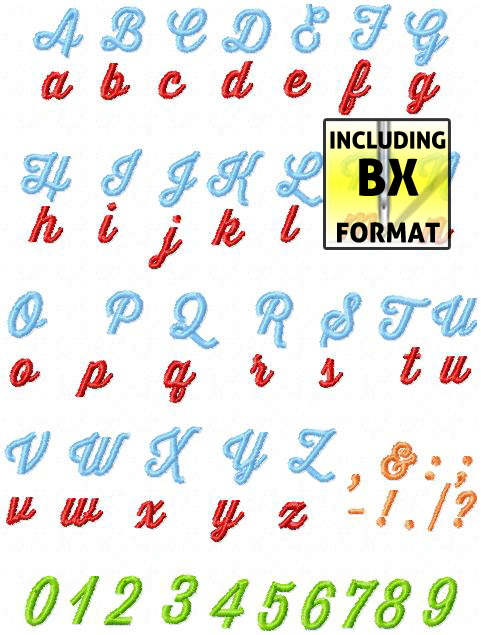
Thirsty Script Font – 1/2″
This highly legible script font stitches out very clearly. It comes with numbers 0-9 and commonly used punctuations. This font was used for our Satin rose pillow and you can see it used in our Spring Birdies mug rug as well.